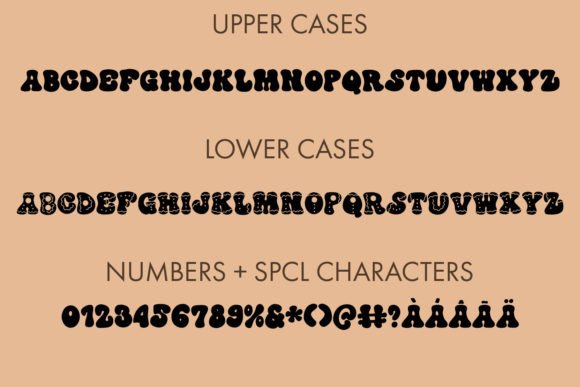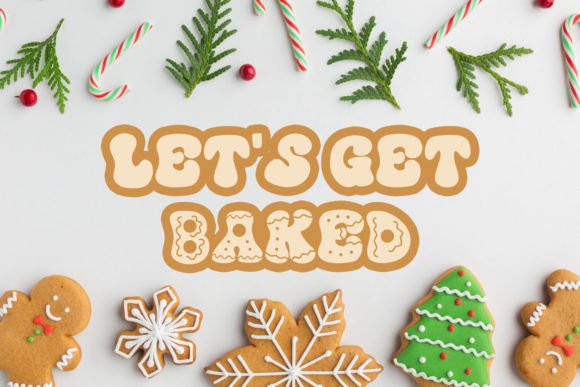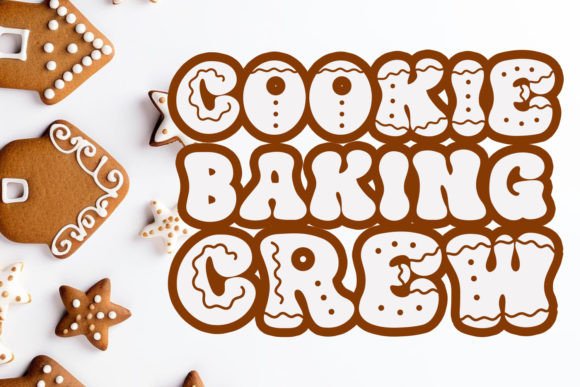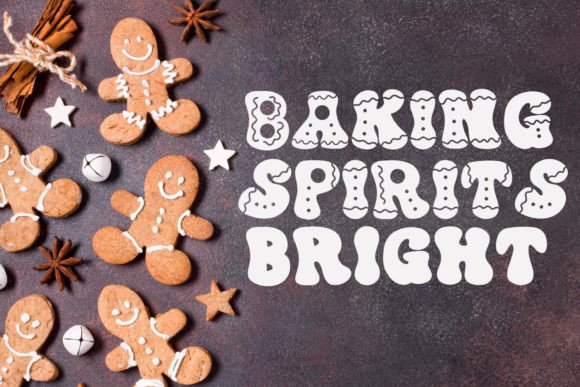
Gingerbread Nelly – A Christmas Retro Font
Get ready to add a dash of retro holiday charm to your creations with ‘Gingerbread Nelly’ Christmas font! This upper-case font boasts whimsical gingerbread designs atop each letter, bringing a festive and nostalgic feel to your holiday projects. Elevate your Christmas designs with a touch of sweet and timeless style.
What is Gingerbread Nelly Font?
Gingerbread Nelly is a unique and festive Christmas font, designed to bring a touch of nostalgia and whimsy to your holiday designs. This upper-case font features gingerbread-inspired designs on top of each letter, creating a fun and playful look that’s perfect for the holiday season.
Key Features of Gingerbread Nelly Font
- Upper-case letters: Each letter is carefully designed with a gingerbread theme, making it perfect for creating eye-catching holiday designs.
- Whimsical designs: The gingerbread designs on top of each letter add a touch of nostalgia and playfulness to your designs.
- Retro feel: The font has a classic, retro look that’s perfect for creating vintage-inspired holiday designs.
- Versatile: Gingerbread Nelly font can be used for a wide range of projects, from T-shirt designs to phone cases, greeting cards, invitations, and more!
Uses for Gingerbread Nelly Font
Gingerbread Nelly font is perfect for designers and crafters looking to add a touch of holiday cheer to their projects. Here are some ideas to get you started:
- T-shirt designs: Create festive holiday T-shirts with Gingerbread Nelly font and make a statement.
- Phone cases: Add a touch of holiday cheer to phone cases with Gingerbread Nelly font.
- Greeting cards: Create personalized holiday greeting cards with Gingerbread Nelly font and make them extra special.
- Invitations: Use Gingerbread Nelly font to create festive holiday invitations that set the tone for your party.
- Mugs: Design holiday mugs with Gingerbread Nelly font and make a great gift for friends and family.
Tips for Using Gingerbread Nelly Font
Here are some tips to help you get the most out of Gingerbread Nelly font:
- Be creative: Don’t be afraid to experiment with different design ideas and color schemes.
- Keep it simple: Use Gingerbread Nelly font as a accent font to add a touch of holiday cheer to your designs.
- Mix and match: Combine Gingerbread Nelly font with other fonts to create a unique and eye-catching design.
Why Choose Gingerbread Nelly Font?
Gingerbread Nelly font is a unique and festive addition to any designer’s toolkit. Here are some reasons why you should choose Gingerbread Nelly font:
- Unique design: Gingerbread Nelly font features a one-of-a-kind design that’s sure to stand out.
- High-quality: Gingerbread Nelly font is designed with high-quality and clarity in mind, ensuring that your designs look great.
Gingerbread Nelly font is a fun and festive addition to any designer’s toolkit. With its whimsical gingerbread designs and retro feel, it’s perfect for creating holiday designs that are both nostalgic and eye-catching. Whether you’re a designer or crafter, Gingerbread Nelly font is sure to bring a touch of holiday cheer to your projects. So why wait? Get creative and have fun with Gingerbread Nelly font today!